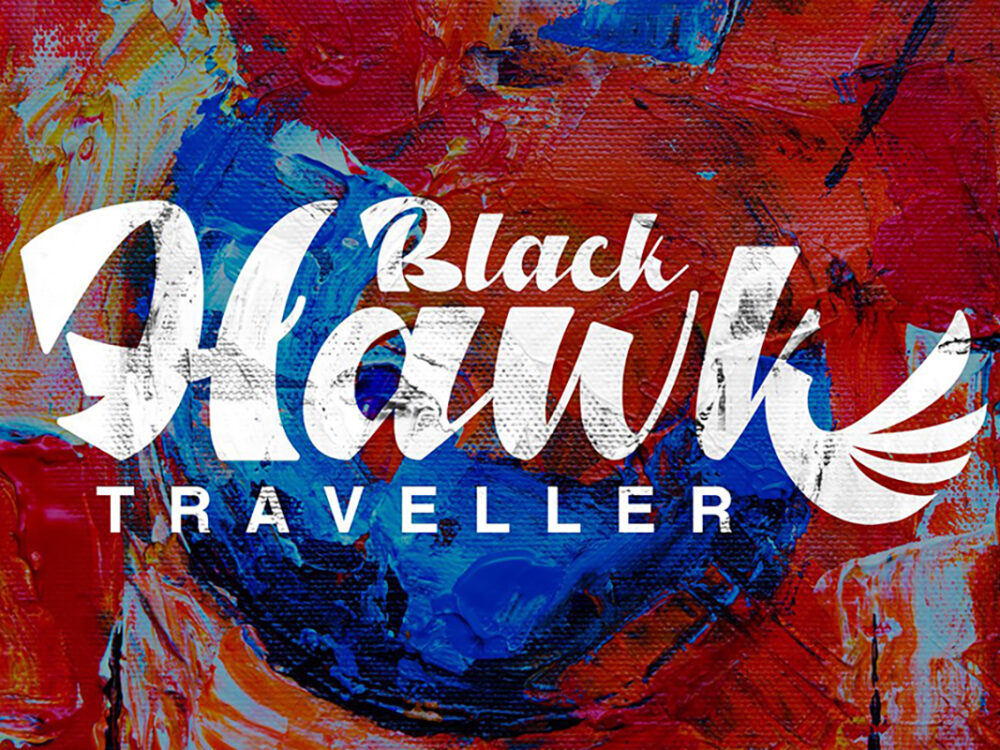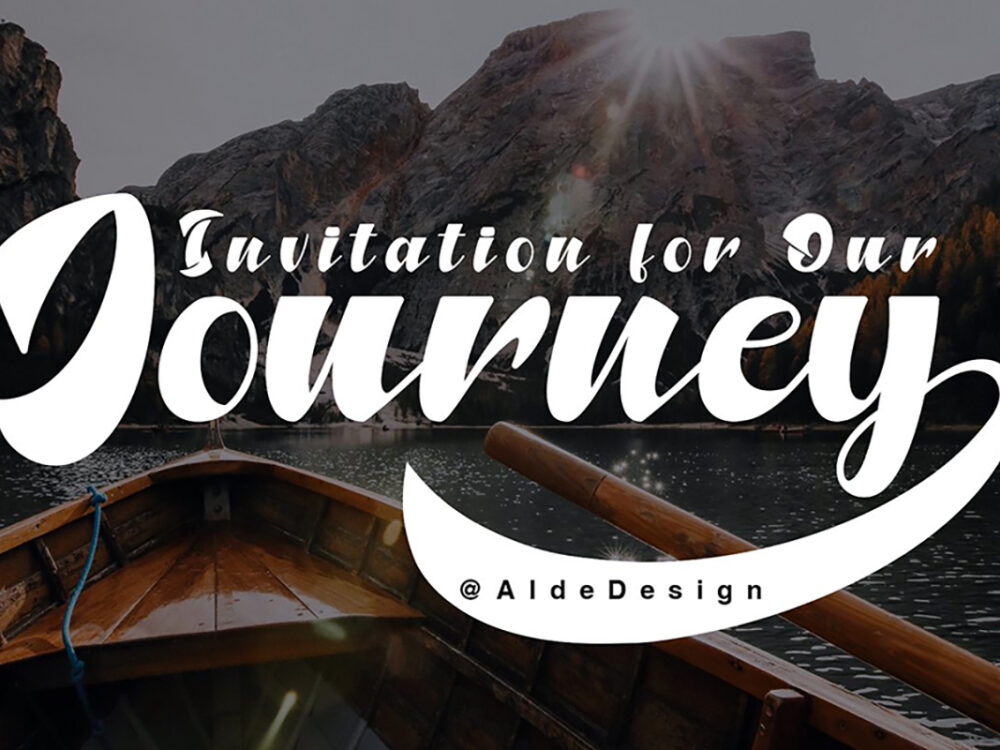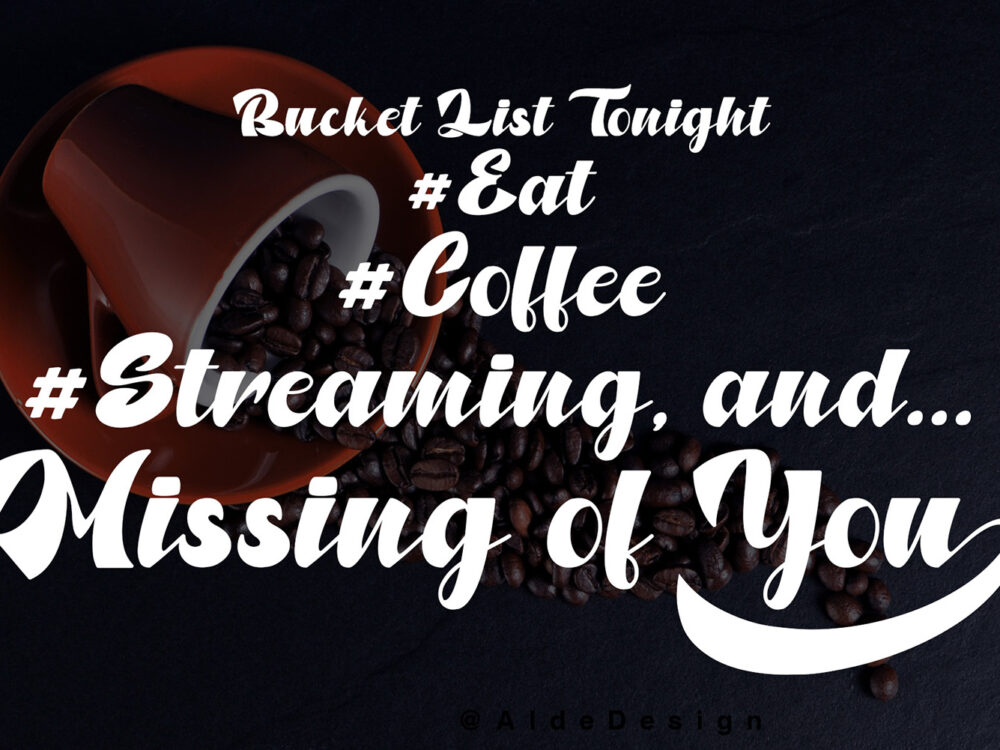
North Blue Bold Script Font
Introducing the North Blue Bold Script Font. This is a new modern bold font that includes over a lot of ligatures, titling, and swash. From posters to advertisements and invitations, you can easily create a modern design project using this font. If you want to use it for commercial work you can buy the full version.